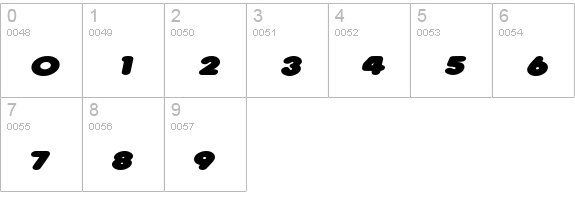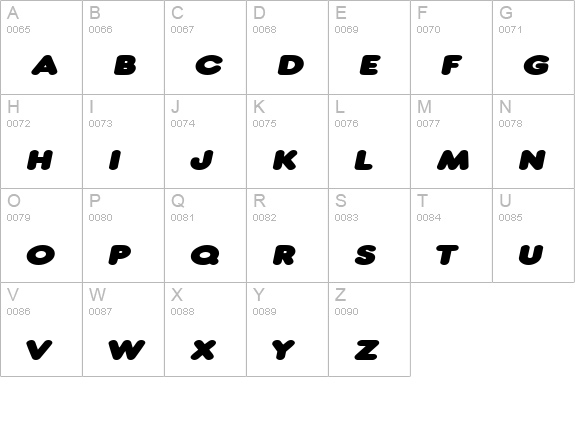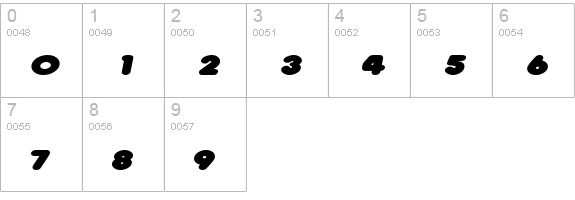
NeonExtended Italic Font Details
NeonExtended Italic is a distinctive, italic variant in the NeonExtended typeface family \xE2\x80\x94 well suited to design and typography projects.
NeonExtended Italic is a sleek and modern font that exudes sophistication and style. The italicized design adds a touch of elegance to any project, making it perfect for fashion magazines, luxury branding, and upscale events. The neon-inspired style of this font gives it a futuristic edge, making it a standout choice for any design that aims to make a statement. And the best part? NeonExtended Italic is available for free download at FontsMarket.com. This means you can easily add this eye-catching font to your collection without breaking the bank. Whether you're a designer looking to elevate your projects or a hobbyist searching for a unique font for personal use, NeonExtended Italic is a must-have addition to your font library. Download it today and watch your designs come to life with a touch of neon flair.